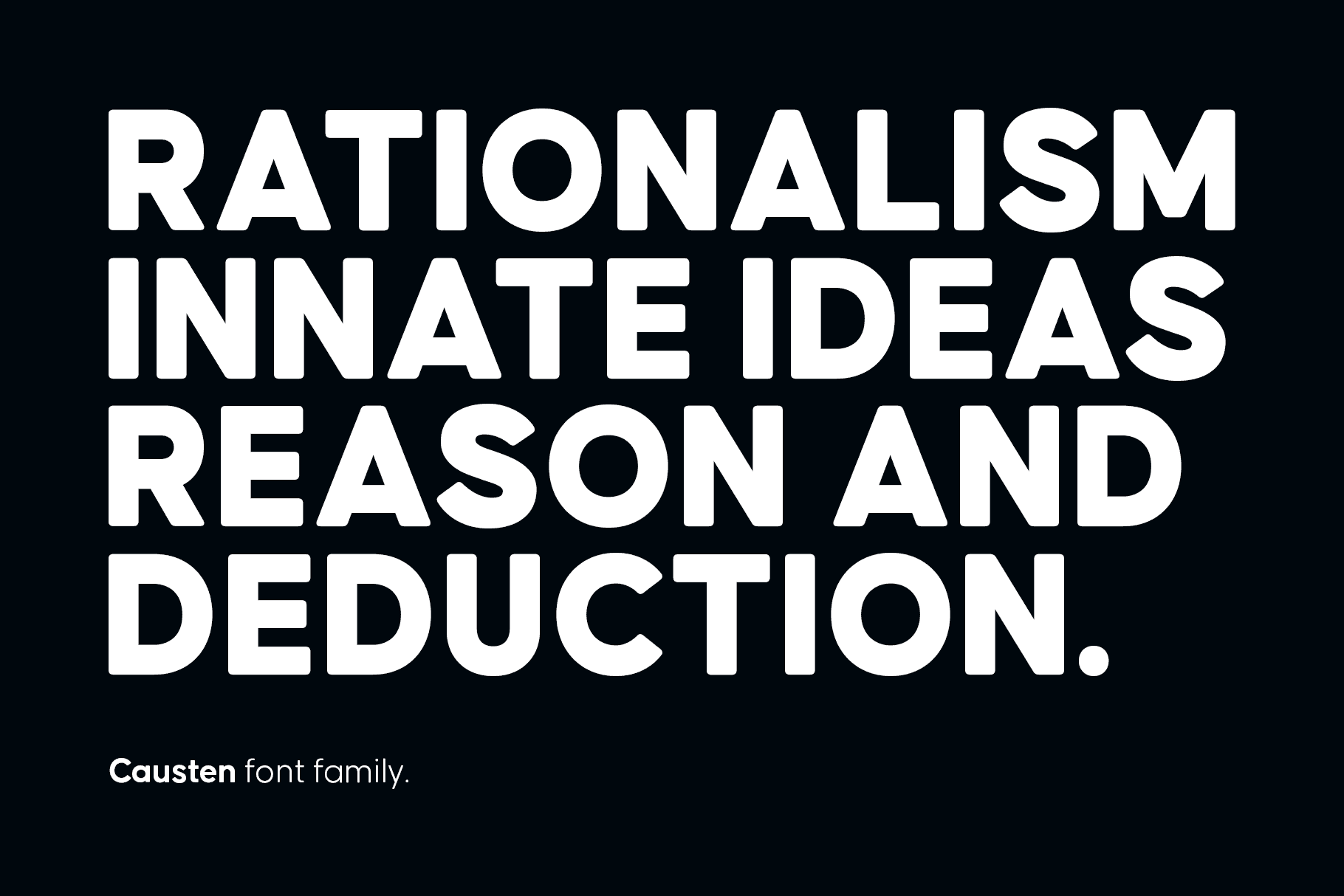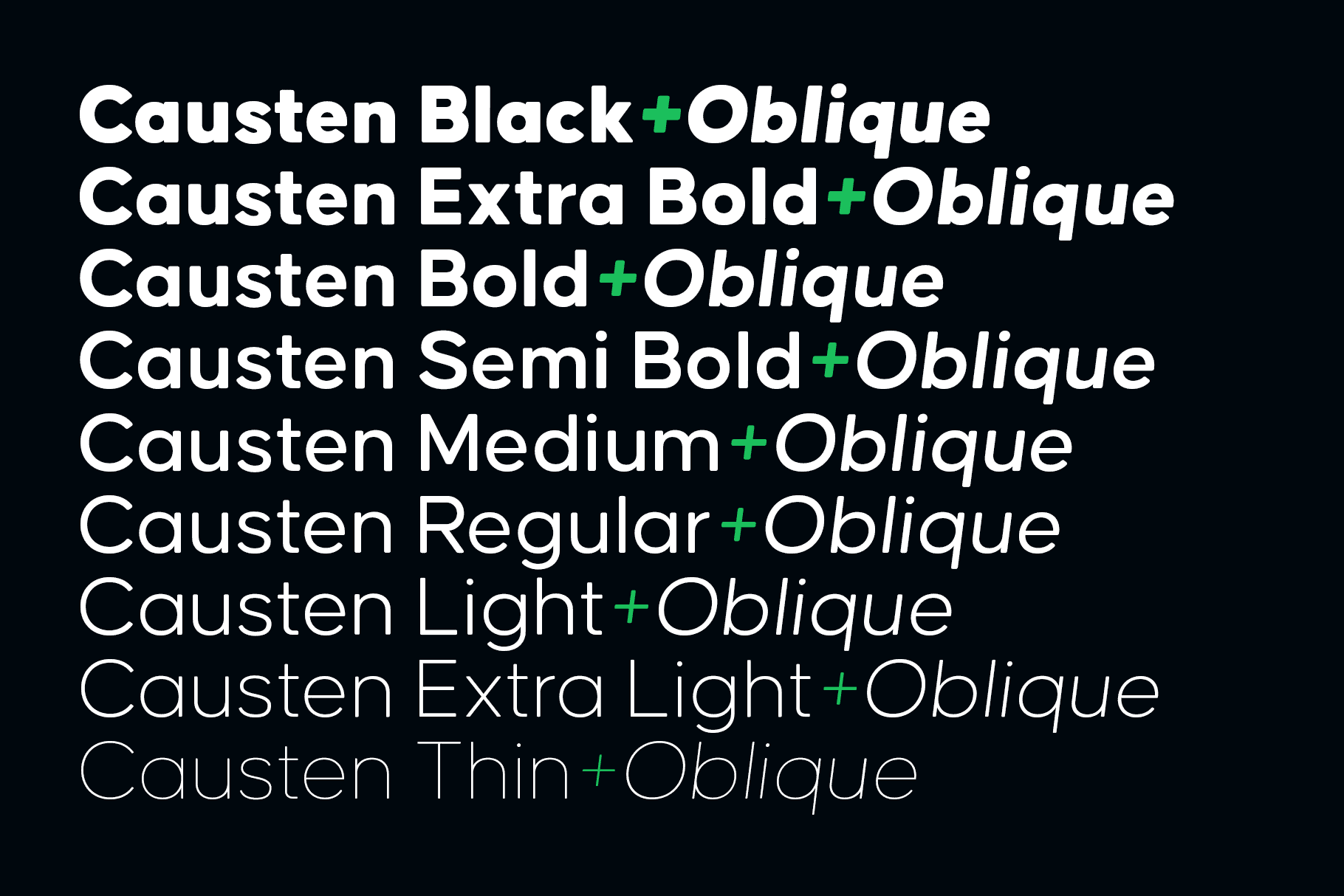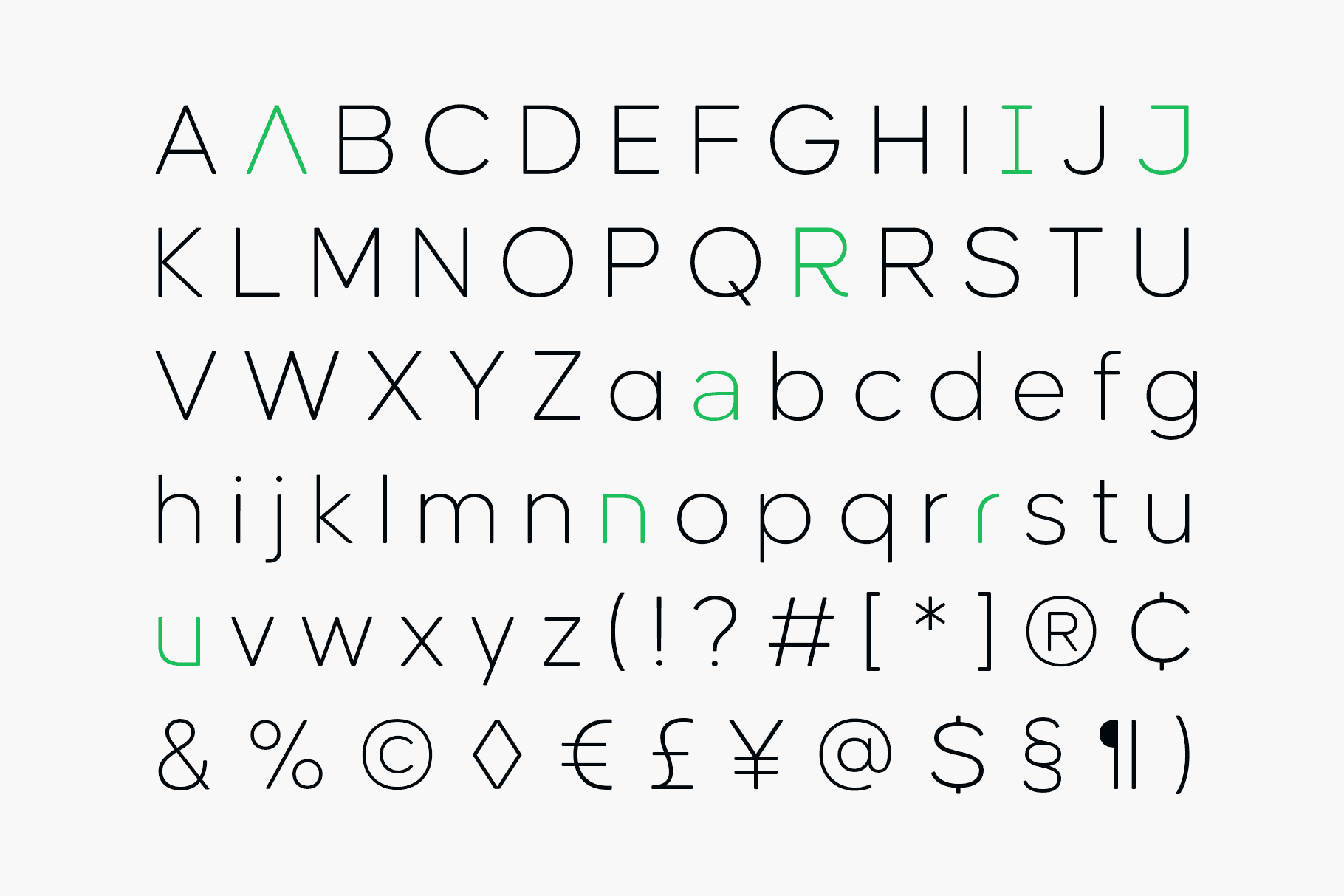
Causten Round – 18 Modern Rounded Fonts in OTF Format
Today we’ve brought you an exclusive deal for Causten Round, a sans serif font family with soft round corners that features 18 variations and is versatile enough for you to use it on everything from long bodies of text to display compositions, headlines, branding and more.
Causten Round is delivered with 9 weights including Thin, Extra Light, Light, Regular, Medium, Semi Bold, Bold, Extra Bold and Black, each weight with a matching oblique version, and every font delivered in OTF format with Uppercase and Lowercase glyphs, multilingual characters, stylistic alternate character sets, ligatures and other OpenType features which lend it versatility for a variety of use-cases
Modern Rounded Sans Serif Font